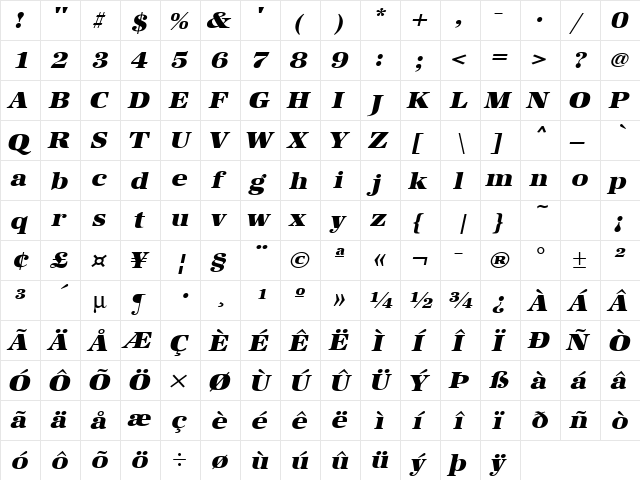
URWAntiquaTUltBolExtWid Oblique
Design Context for URWAntiquaTUltBolExtWid Typeface
URWAntiquaTUltBolExtWid is a composed and adaptable typeface that performs quietly and consistently across a wide range of design contexts. The slanted form adds forward momentum and visual energy.
Pro Tip: Try URWAntiquaTUltBolExtWid for annotation and caption copy alongside an upright companion — the contrast in angle creates a dynamic but ordered typographic system.